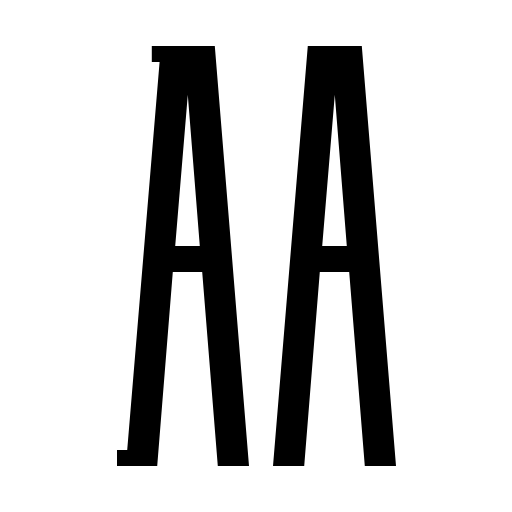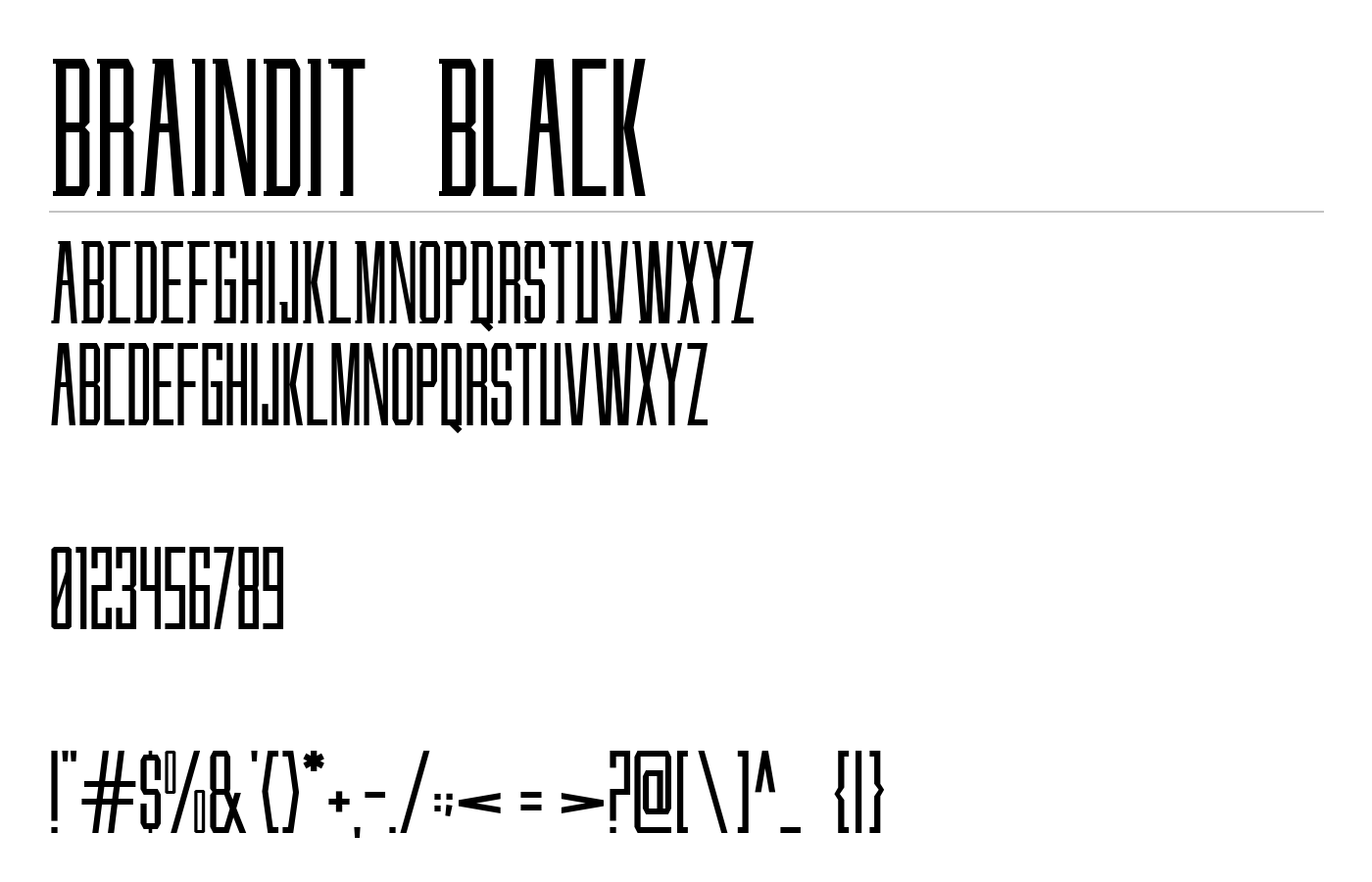
BRAINDIT is a tall, condensed sans serif font with a strong, modern presence characterized by its narrow letterforms and uniform stroke weight. Its sharp, geometric shapes and high x-height give it a striking, industrial feel that works well for bold headlines, logos, and branding that demands attention with a sleek, urban edge. This font is ideal for contemporary design projects where a clean but impactful aesthetic is desired.
BRAINDIT Font
About BRAINDIT Font